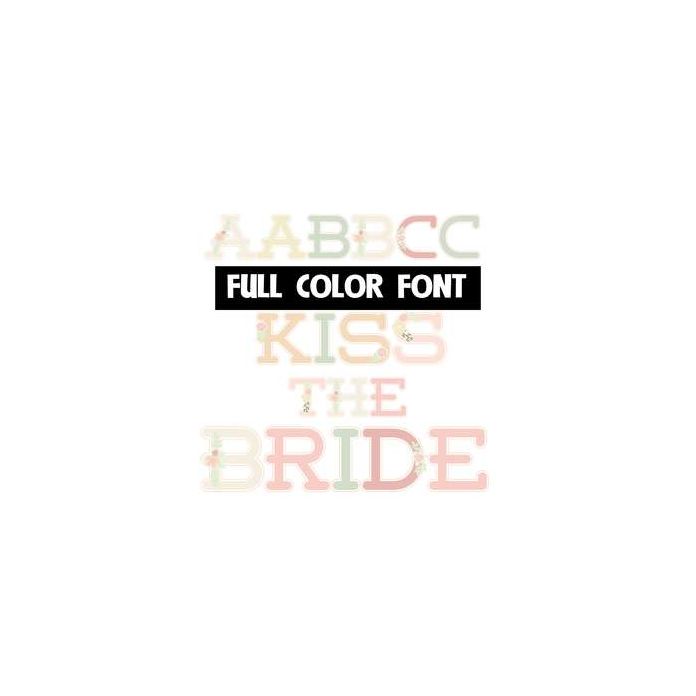
This pretty neutral colored font has an occasional floral arrangement here and there. This font works best for titles, displays, posters and more. Please note color fonts will show as black in non compatible programs. This font type is compatible with Silhouette Studio.